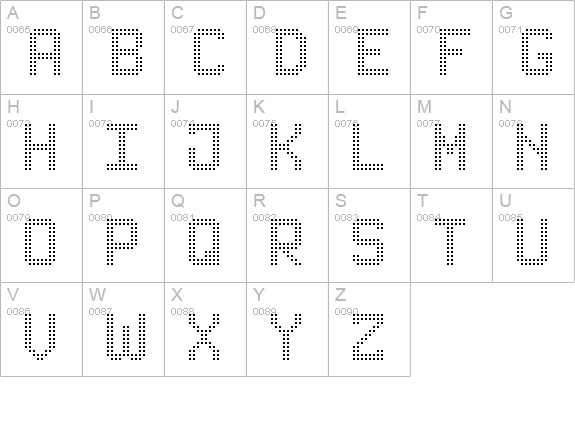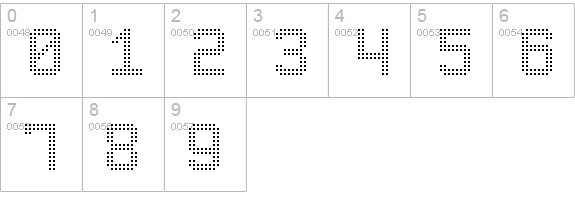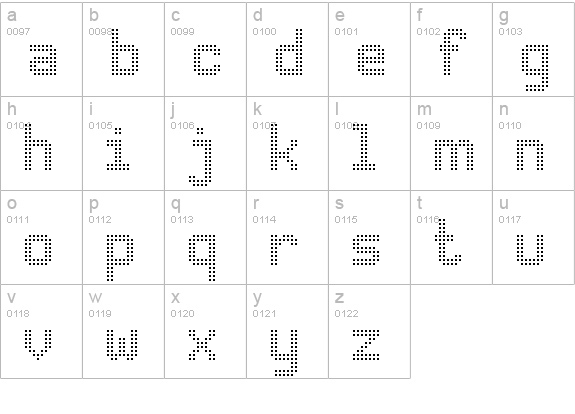
Advanced Dot Digital-7 Font Details
Advanced Dot Digital-7 is an extraordinary font that combines the sleekness of modern design with the uniqueness of dot matrix aesthetics. This font is perfect for those seeking a cutting-edge and futuristic look for their projects. With its meticulously crafted dots and clean lines, Advanced Dot Digital-7 captures the essence of digital innovation. The versatility of this font is unparalleled, making it suitable for a wide range of applications. Whether you are designing a website, creating digital art, or even crafting a captivating logo, Advanced Dot Digital-7 will elevate your work to the next level. Its modern and minimalist appearance adds a touch of sophistication and professionalism to any project, while still maintaining a sense of playfulness and creativity. One of the most remarkable aspects of Advanced Dot Digital-7 is that it is freely available to download at FontsMarket.com. This means that you can access this exceptional font without any cost or restrictions. The accessibility of Advanced Dot Digital-7 allows designers and enthusiasts from all walks of life to explore and utilize its limitless possibilities. Download Advanced Dot Digital-7 today from FontsMarket.com and unlock a world of innovative typography. Craft stunning visuals that captivate and inspire, all while enjoying the freedom of this incredible font. Immerse yourself in the realm of cutting-edge design and let Advanced Dot Digital-7 be your creative companion.